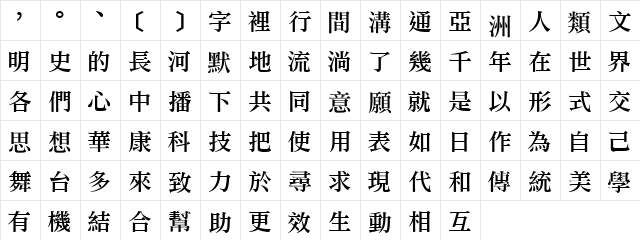
DFLiSongMedium1B Regular
Design Context for DFLiSongMedium1B Typeface
DFLiSongMedium1B is a composed and adaptable typeface that performs quietly and consistently across a wide range of design contexts.